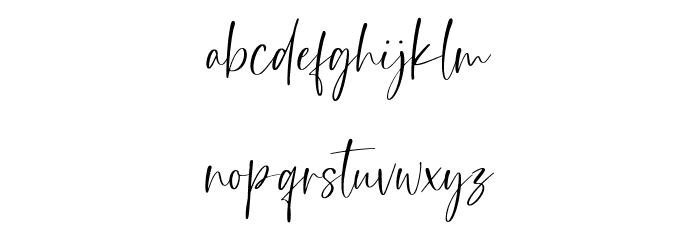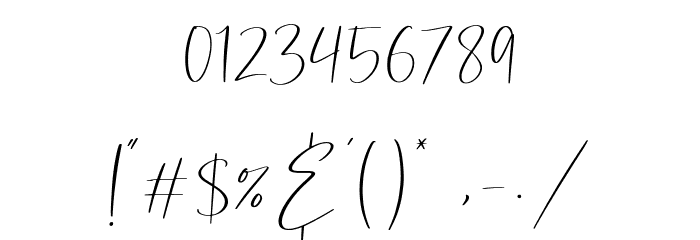
Belladonna Font
This font exudes a whimsical and elegant charm, characterized by its flowing, cursive style. The letters are crafted with a delicate, hand-drawn appearance, featuring a mix of thick and thin strokes that add a dynamic and lively feel. The uppercase letters are tall and graceful, while the lowercase letters maintain a consistent, fluid motion. Numbers and special characters are designed with the same artistic flair, ensuring a cohesive look across all text. The overall impression is one of sophistication and creativity, making it ideal for projects that require a personal touch.
A whimsical, elegant cursive font with a hand-drawn appearance.
- Proposed Projects: Ideal for wedding invitations, greeting cards, personal branding, and artistic projects.
- Use Case: Logos, Invitations, Artistic projects